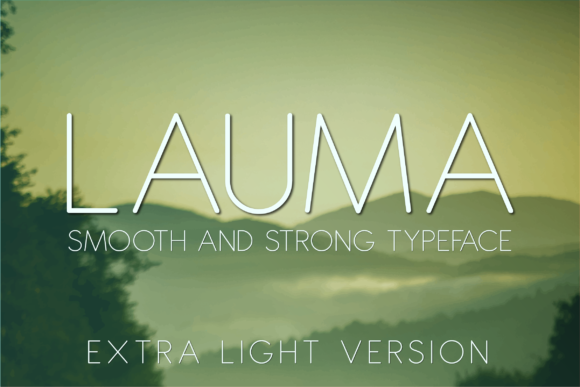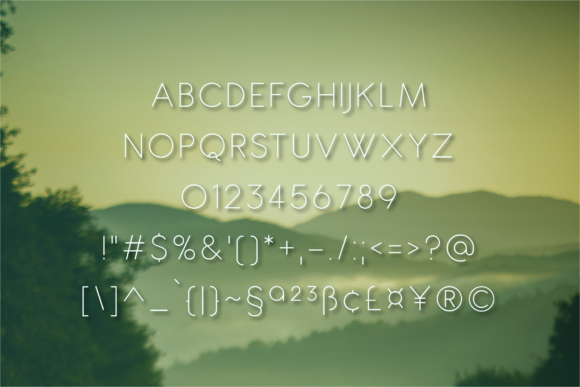
Lauma Extra Light Font
About Lauma Extra Light Font
Lauma is an equally smooth and strong sans serif font with a friendly vibe. Its rounded, soft terminals give it a warm and expressive look, and its contemporary style makes it an excellent choice for headlines, logotypes, branding, books, magazines, motion graphics, and much more!